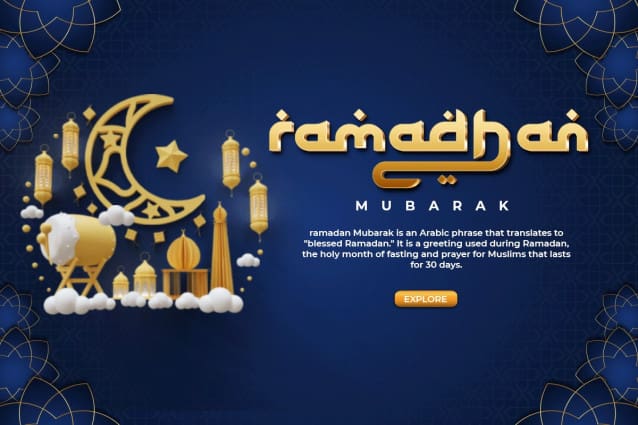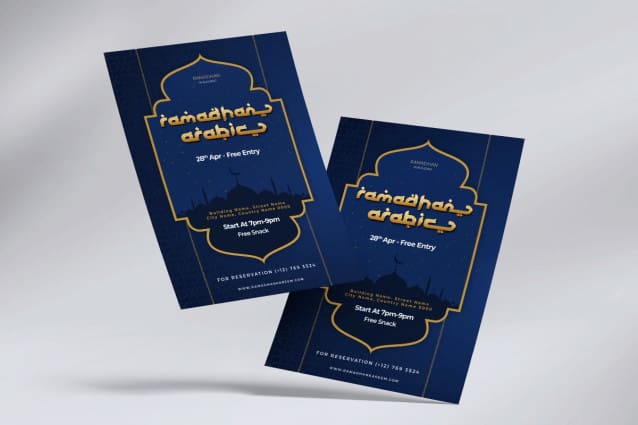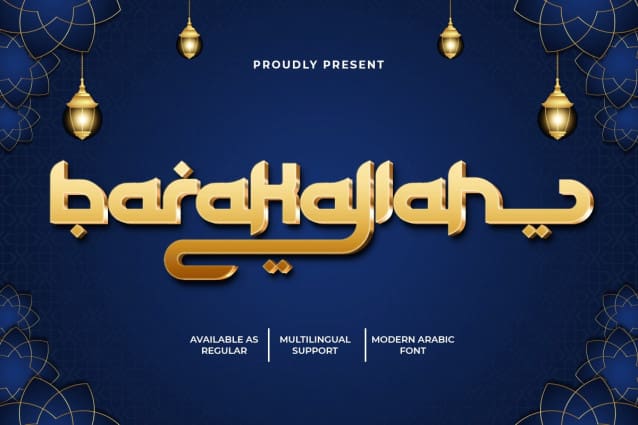
Barakallah Arabic Font
Barakallah Arabic Font is a modern Arabic Font that presents a unique and attractive decorative typographic appearance. This type of letter is a variation of decorative fonts that have the theme of Arabic shades. This nuance is presently completed with themes and ornaments that accompany him.
Speaking of readability, Barakallah Arabic Font is an eligible font. You have to see it carefully to understand it. This font was created to celebrate various celebration parties. This font can use as a poster and banner at events such as celebrations in Islam, such as the Ramadhan month, Eid al -Fitr, and others. Welcome banners and party-themed posters for the invitees. Large print banners with medium font size will also be the best choice when using this type of letter because it will attract everyone’s attention to the words you write using this font when entering the room.
You can also use Barakallah Arabic Font in other products such as; T-shirts, book covers, and branding. This font is suitable for all products with Arabic or Islamic themes. This font can also use as a marketing and packaging advertisement for food products. This font can also use as decoration in places offered by people, such as; Shopping malls, restaurants, and bars.